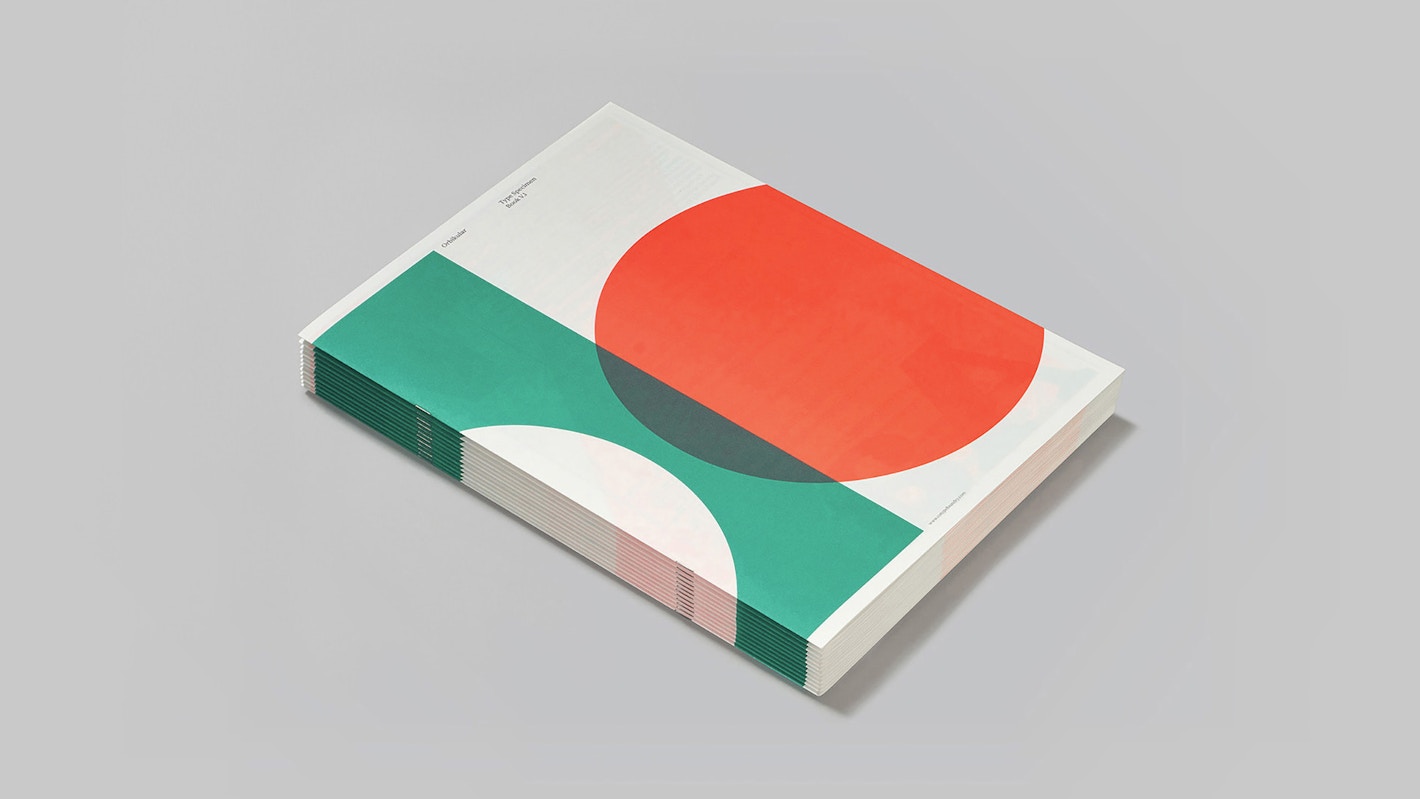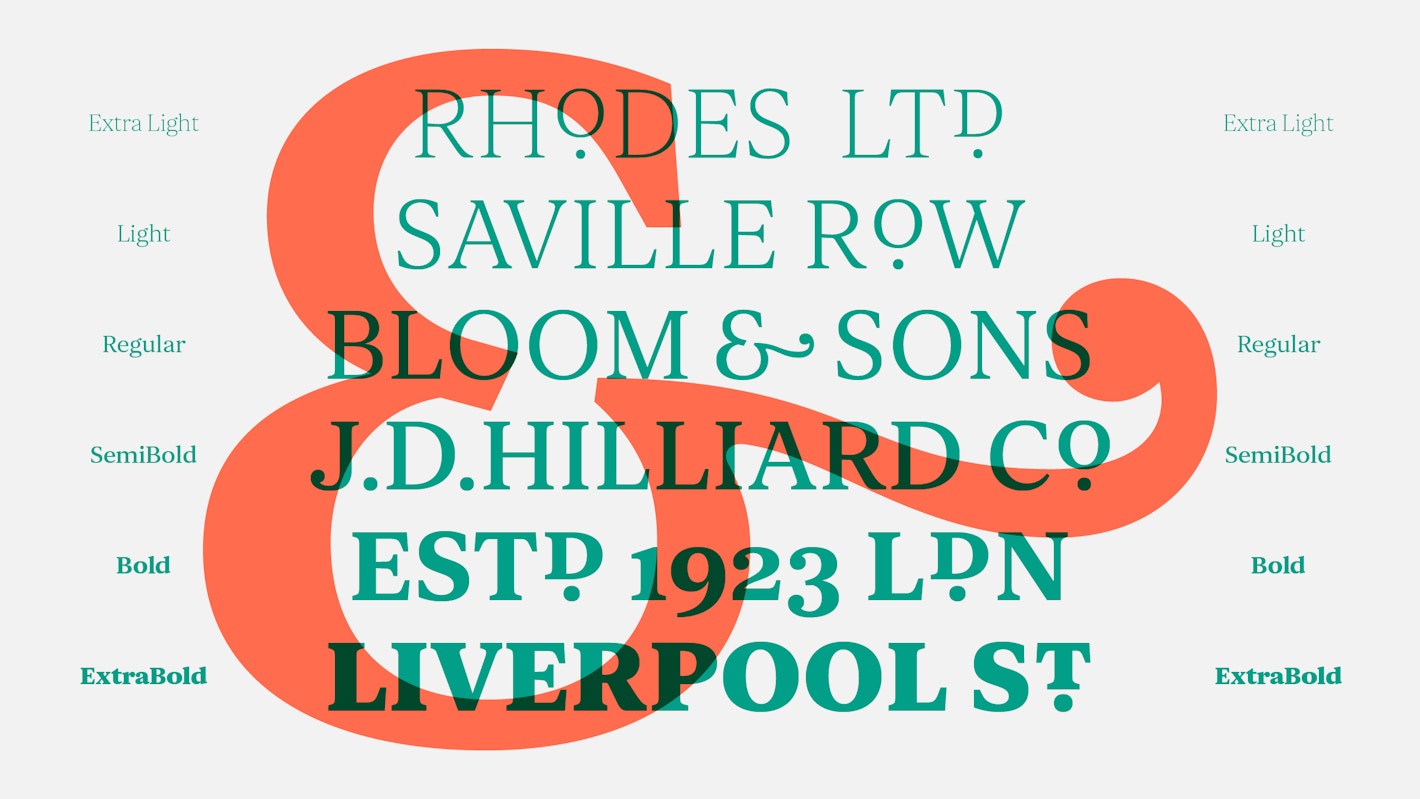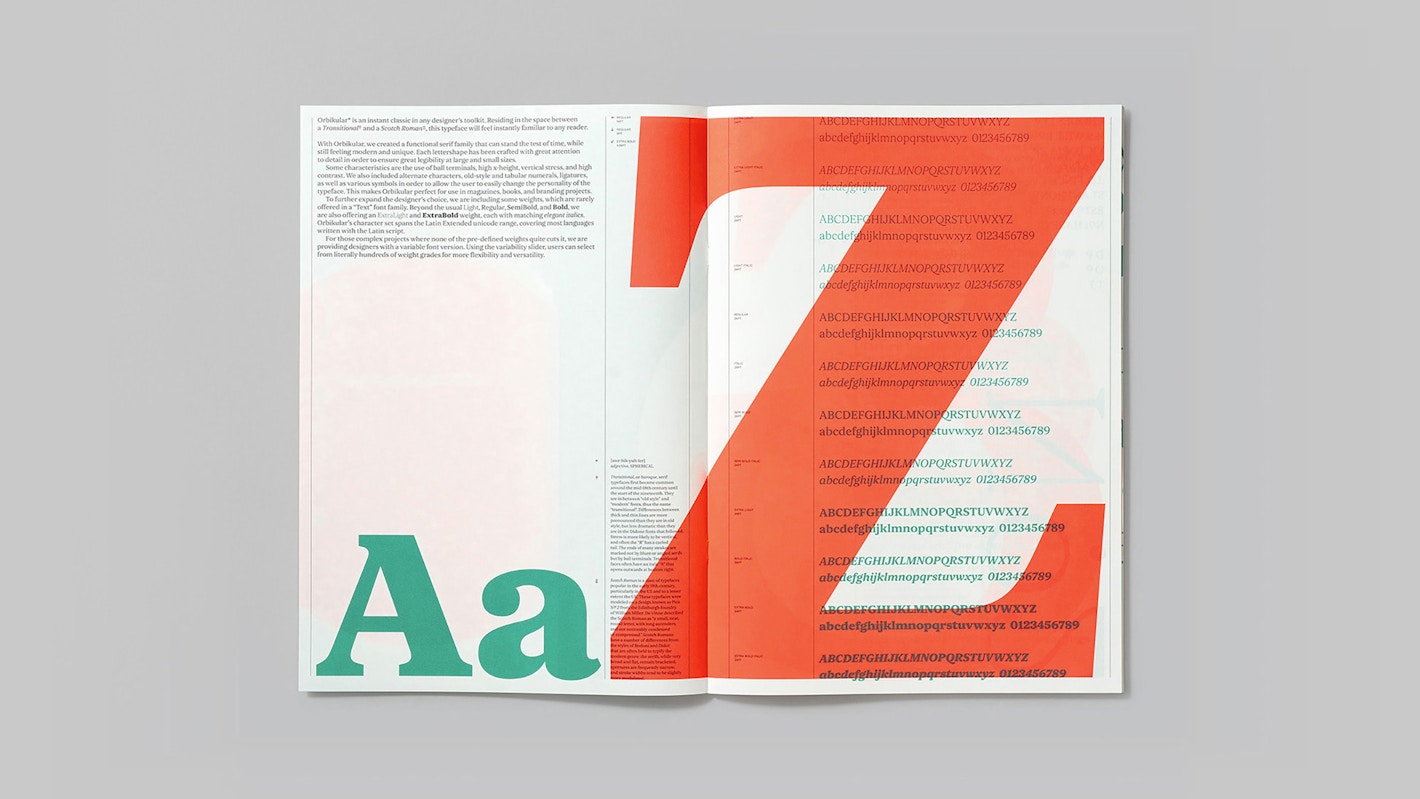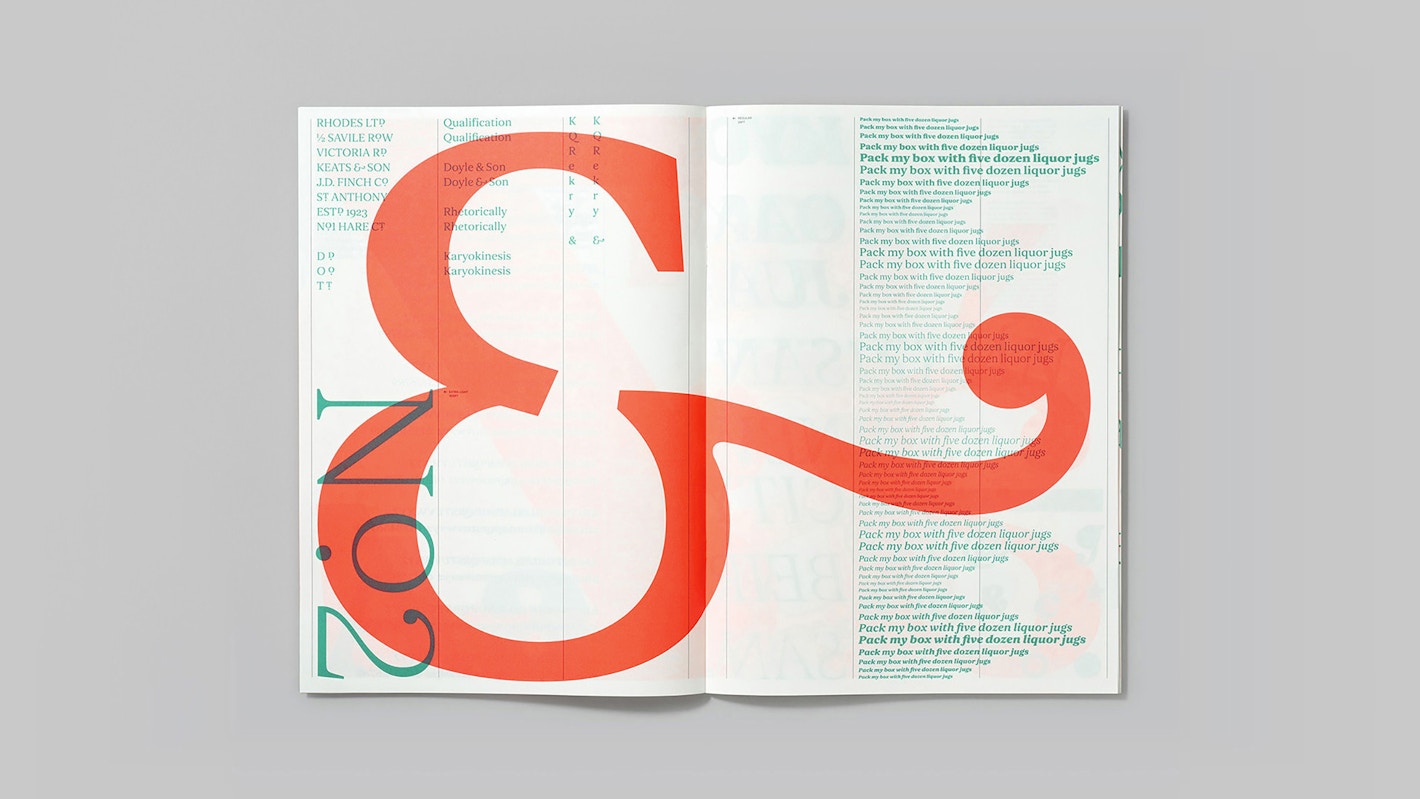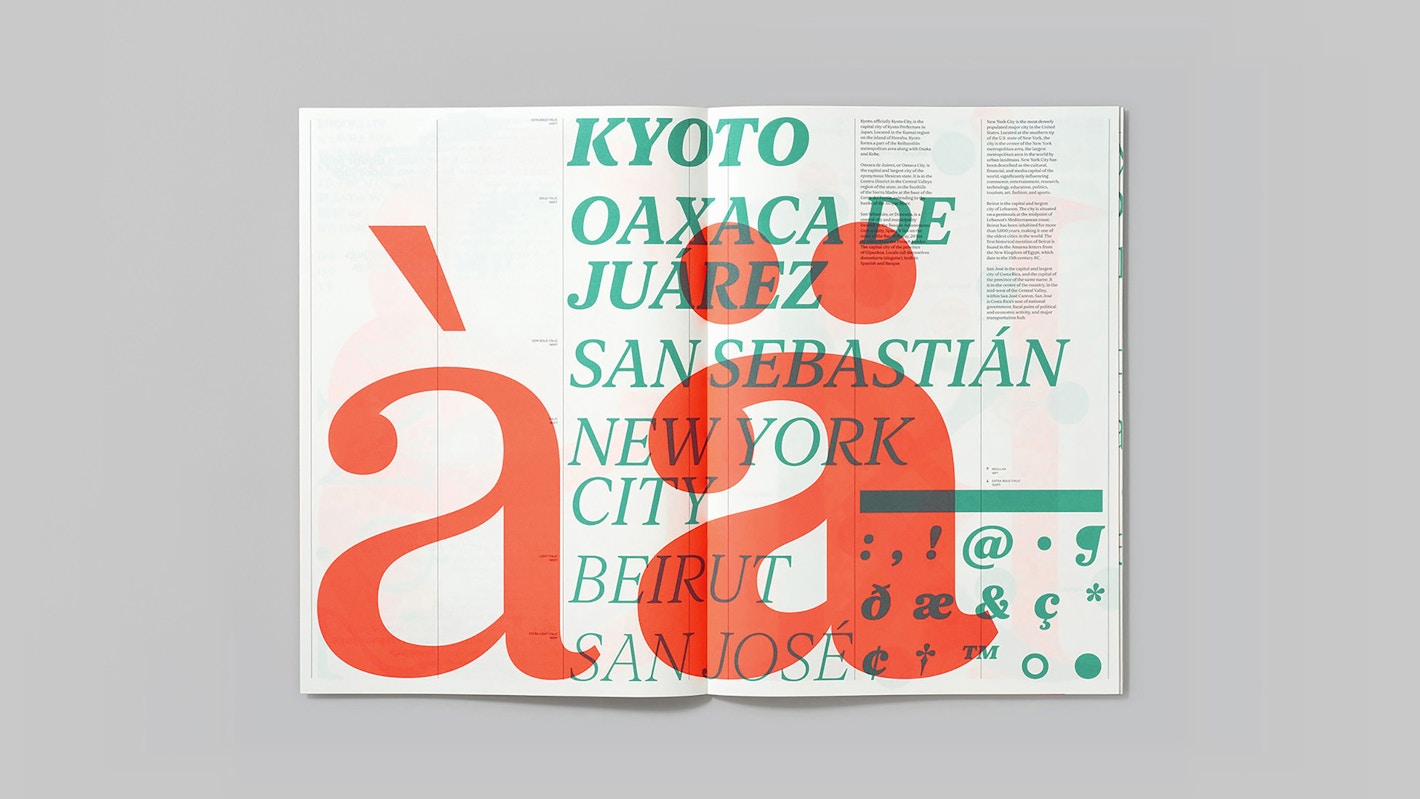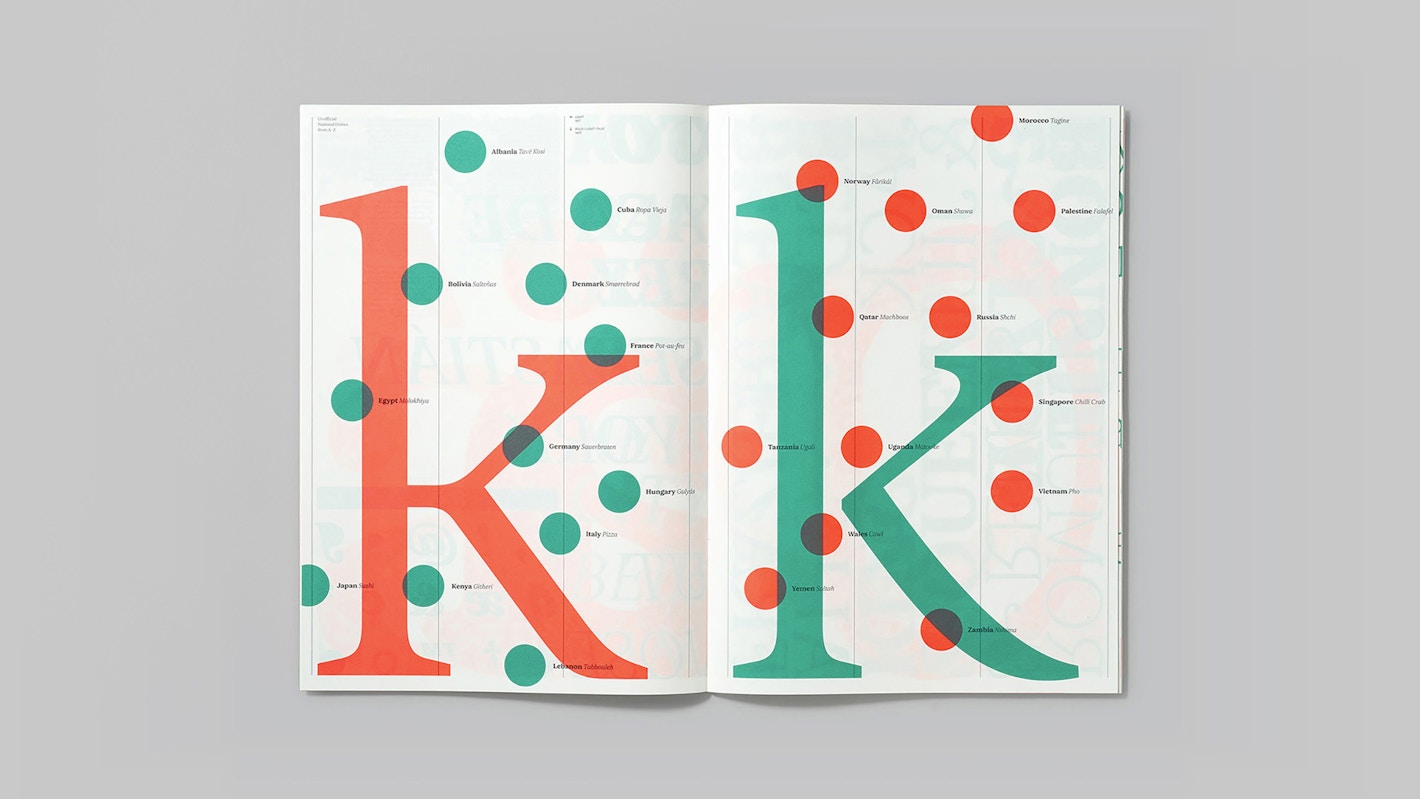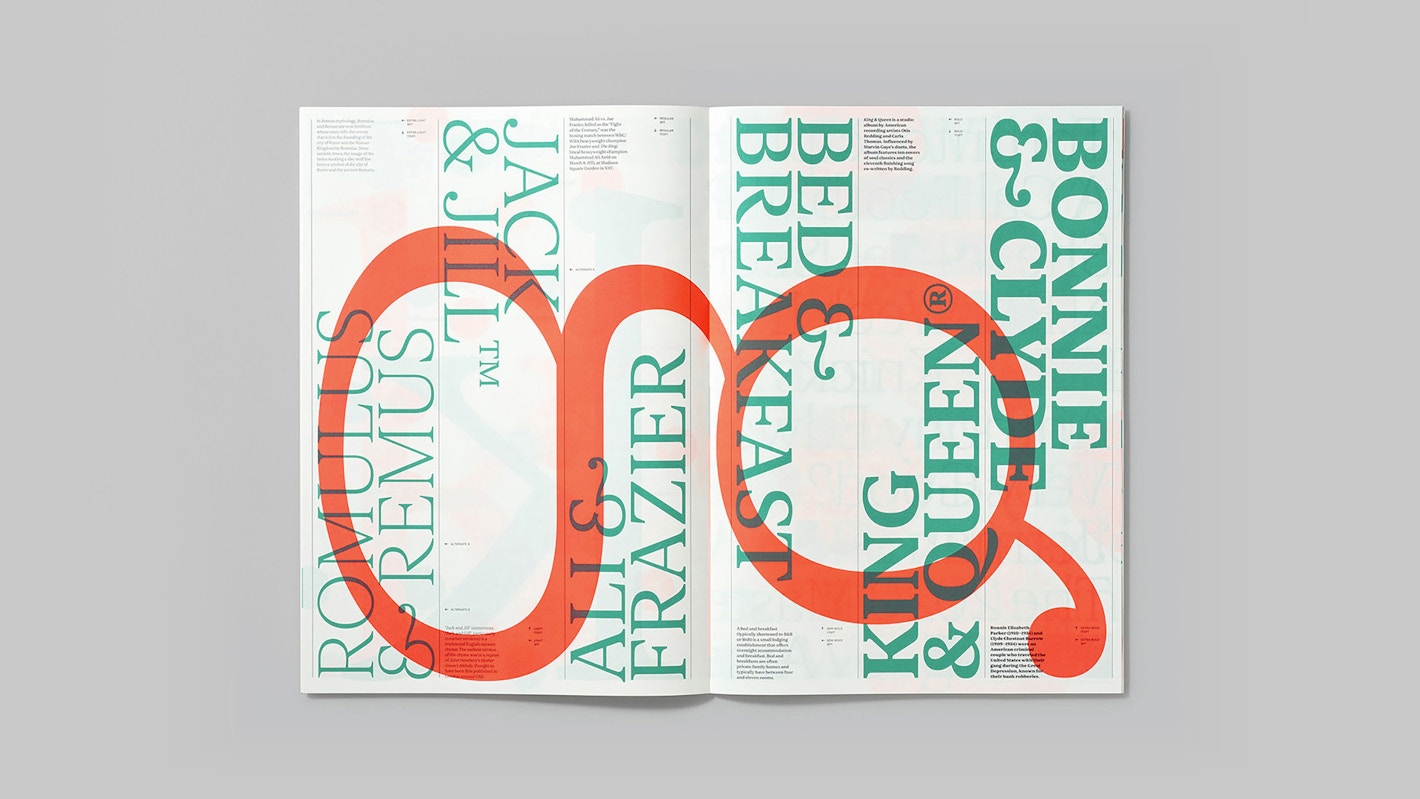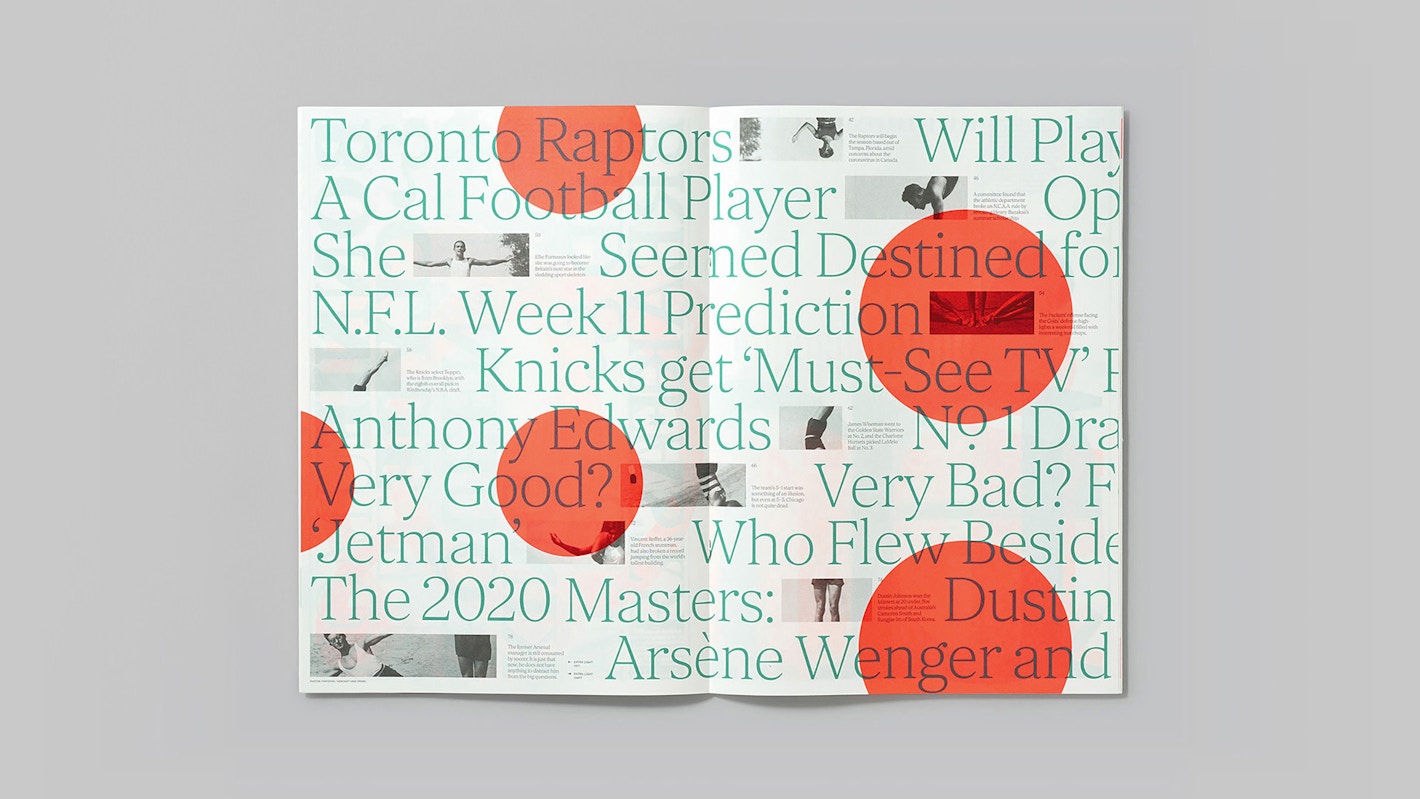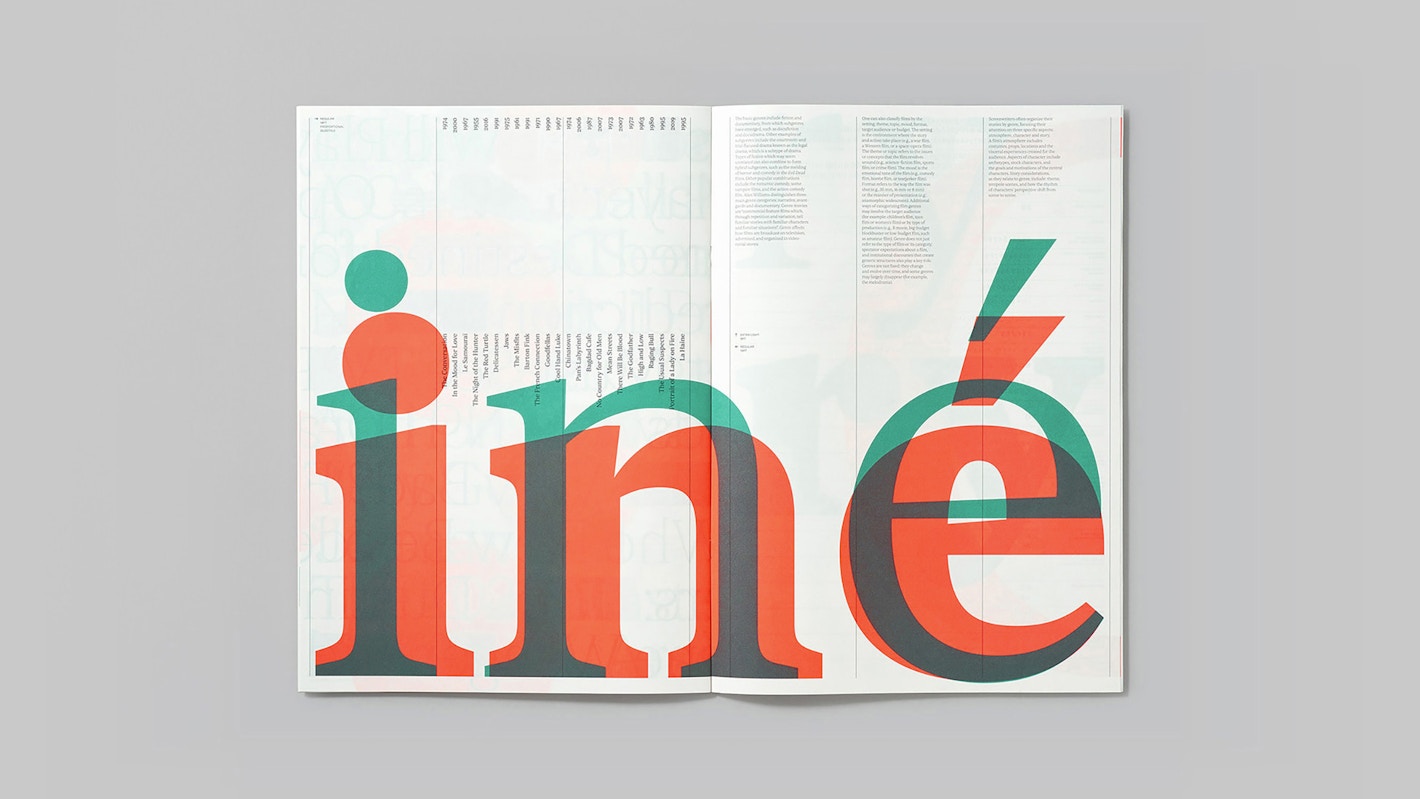
Orbikular is a timeless serif typeface that bridges the gap between Transitional and Scotch Roman styles. Instantly familiar yet undeniably unique, Orbikular offers a balance of tradition and modernity, making it a reliable classic for any designer’s toolkit.
Crafted with meticulous attention to detail, Orbikular ensures excellent legibility at both large and small sizes. Its defining characteristics include ball terminals, a high x-height, vertical stress, and high contrast. Alternate characters, old-style and tabular numerals, ligatures, and various symbols allow users to adapt Orbikular’s personality to suit their projects, making it an excellent choice for magazines, books, and branding.
The family includes six weights – from ExtraLight to ExtraBold – each with matching italics. These ExtraLight and ExtraBold weights are rarely offered in traditional text families and provide designers with greater flexibility for both display and text applications. Orbikular’s Latin Extended character set supports most European languages written in the Latin script, ensuring versatility for international projects.
For even greater flexibility, Orbikular includes a variable font version, enabling precise fine-tuning on the weight axis. Whether you’re crafting elegant editorial layouts or bold branding, Orbikular provides the tools for timeless and impactful typography.